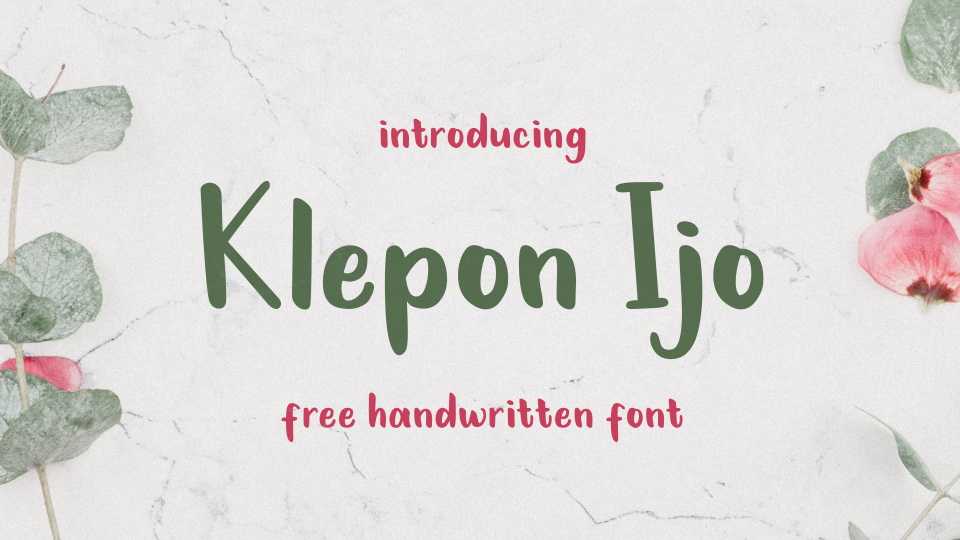
Download Klepon Ijo font, a simple and casual hand drawn typeface. Klepon Ijo is perfect for craft projects, notes, quotes, social media and other artworks.
Designer: Aprian Sembada